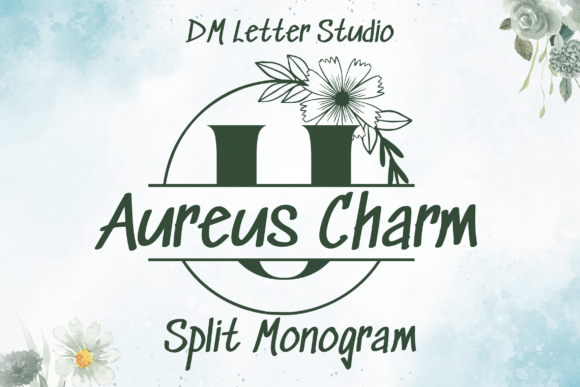
The Aureus Charm Font: Elevating Your Designs with Timeless Elegance
Have you ever been in the midst of working on a project, only to find that the perfect font is elusive? I recall a particularly frustrating experience while designing a wedding invitation suite. My client wanted an elegant, sophisticated look that would make their special day even more memorable. After scouring through countless font options, I stumbled upon the Aureus Charm Split Monogram font. It was love at first sight! ✨
The Aureus Charm Split Monogram font is a refined and regal serif font featuring elegant split-letter designs perfect for personalized monograms. With its classic uppercase structure and graceful dividing lines, this typeface is ideal for custom nameplates, wedding decor, branding, and upscale gifts. It balances timeless sophistication with modern personalization, creating memorable typographic moments.
Features and Benefits
The Aureus Charm Split Monogram font boasts several impressive features that make it a versatile and valuable addition to any designer’s toolkit:
• Split Monogram Design: Stylish capital letters split with a center band for names or initials.
• Classic Serif Foundation: Elegant serif shapes with clean lines and symmetrical structure.
• Personalization Ready: Ideal for custom engraving, family name signs, gifts, and logos.
• ✨ Elegant and sophisticated design that’s perfect for high-end projects.
• ✅ Easy to use and customize, even for those without extensive design experience.
While the Aureus Charm Split Monogram font is an excellent choice for many projects, there are a few minor limitations to consider:
• ⚠️ Limited use of lowercase letters, which may not be ideal for body text or longer paragraphs.
• 🤔 May require additional design elements to create a cohesive look for certain projects, such as bold or italic variations.
The Aureus Charm Split Monogram font was inspired by the classic typography of luxury brands and high-end designers. Imagine a vintage, upscale boutique with elegant signage and refined packaging – that’s the aesthetic that inspired this beautiful font. The designer aimed to create a font that would evoke a sense of timeless sophistication and refinement, while also offering modern personalization options.
Is Aureus Charm Split Monogram suitable for body text? While the font is primarily designed for headlines and titles, it can be used for short paragraphs or body text in certain design contexts.